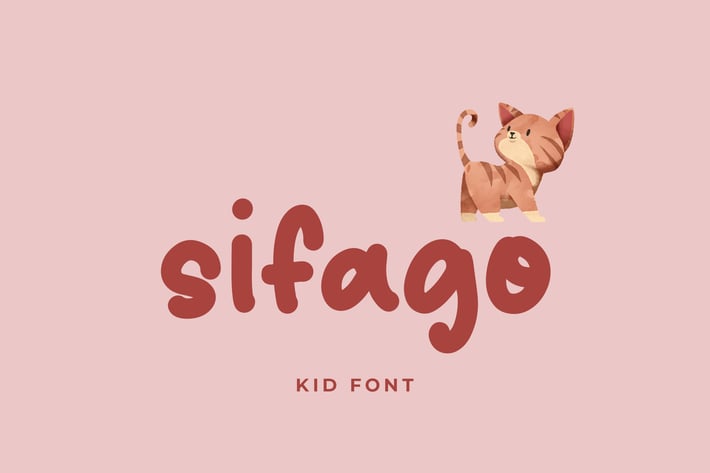
Sifago Kids Display Font
Sifago is an exciting and extraordinary display font that will make any kid-themed design stand out!
Sifago is perfect for kids branding projects, logo, tshirt designs, book cover design, social media posts, advertisements, product packaging, product designs, label, watermark, invitation, stationery and any projects.